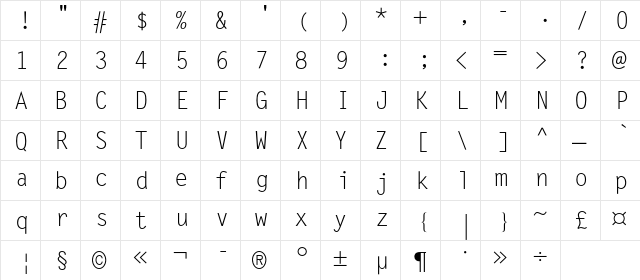
MetronomC Regular
Design Context for MetronomC Typeface
MetronomC takes a measured approach to typography — its balanced proportions and neutral character make it a reliable workhorse for both digital and print work.